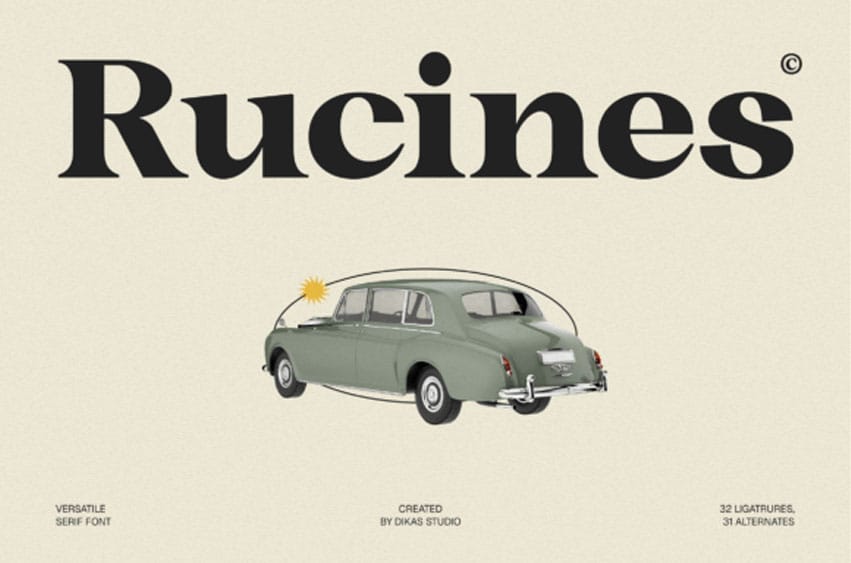
Ruciness Font is a vintage serif font that captures a classic atmosphere with a strong nostalgic character. Designed with well-defined serif details, this font delivers an authentic vintage feel while remaining versatile for modern design needs.
Ruciness comes in two styles, Regular and Rough, allowing you to switch between a clean classic look and a more textured, handcrafted impression. Enhanced with flowing alternate characters that gently curve and twist, Ruciness adds uniqueness and personality to every composition. This font is perfect for logos, posters, packaging, branding, and any design that calls for a timeless vintage touch with elegant character.